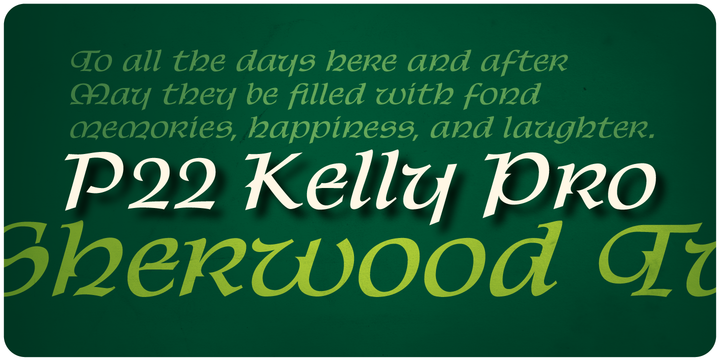
P22 Kelly is a Celtic-styled uncial font with a medieval gothic flavor and an overall contemporary feel. The font is an addition to the Sherwood Collection of historical and period-based fonts by Ted Staunton. It is ideal for uses that need to evoke the Celtic spirit or the medieval period.
The font is available in pro and basic OpenType styles. Kelly Pro combines the two basic OpenType styles, Regular and Alt Caps, into one font and adds Pro OpenType features such as swashes, additional titling caps and Central European character sets. The Regular and Alt Caps styles are each available separately. The two fonts share the same lower case with stylistically different upper case designs.